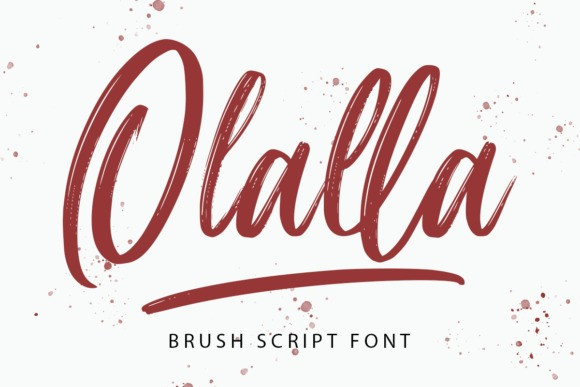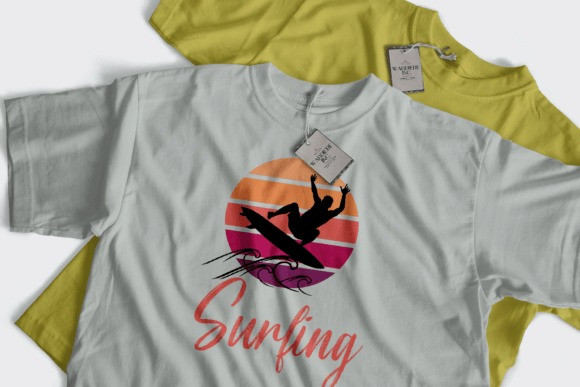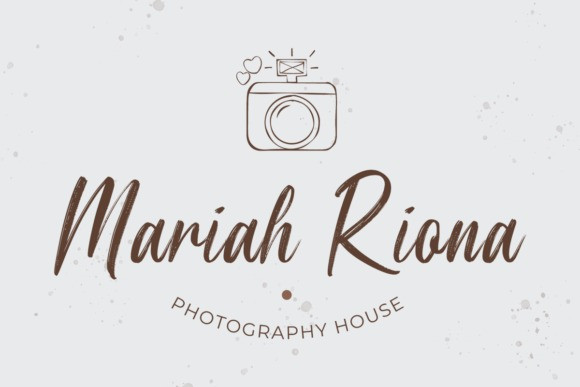
Olalla Font
Olalla is a modern brushed script font that comes with a swash. Simple but with powerful visual effects, this font is perfect for all logos, branding, poster, social media, fonts, typography, t-shirt designs, quotes, greeting cards, and more! This font is PUA encoded, which means you can access all of the glyphs and swashes with ease!